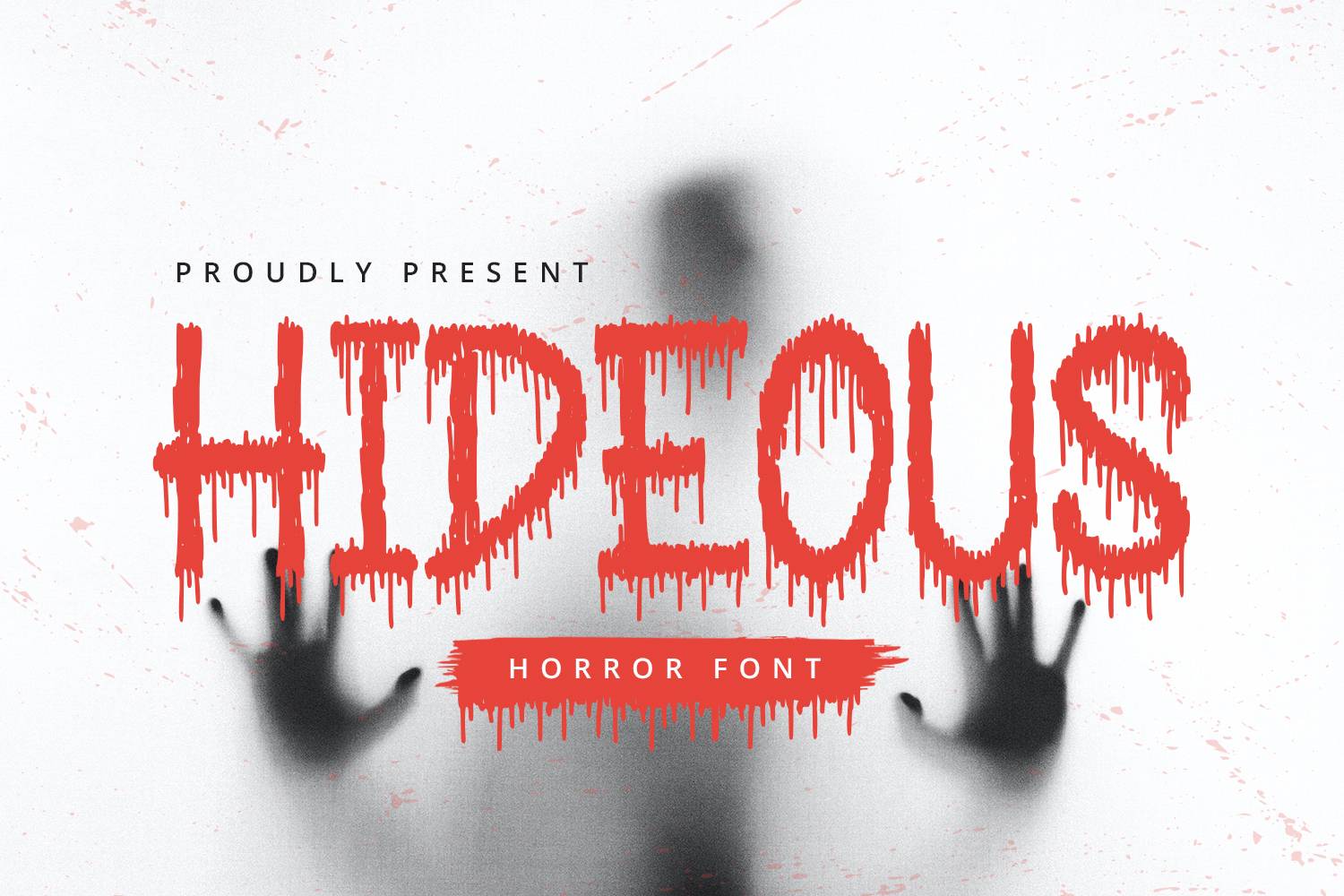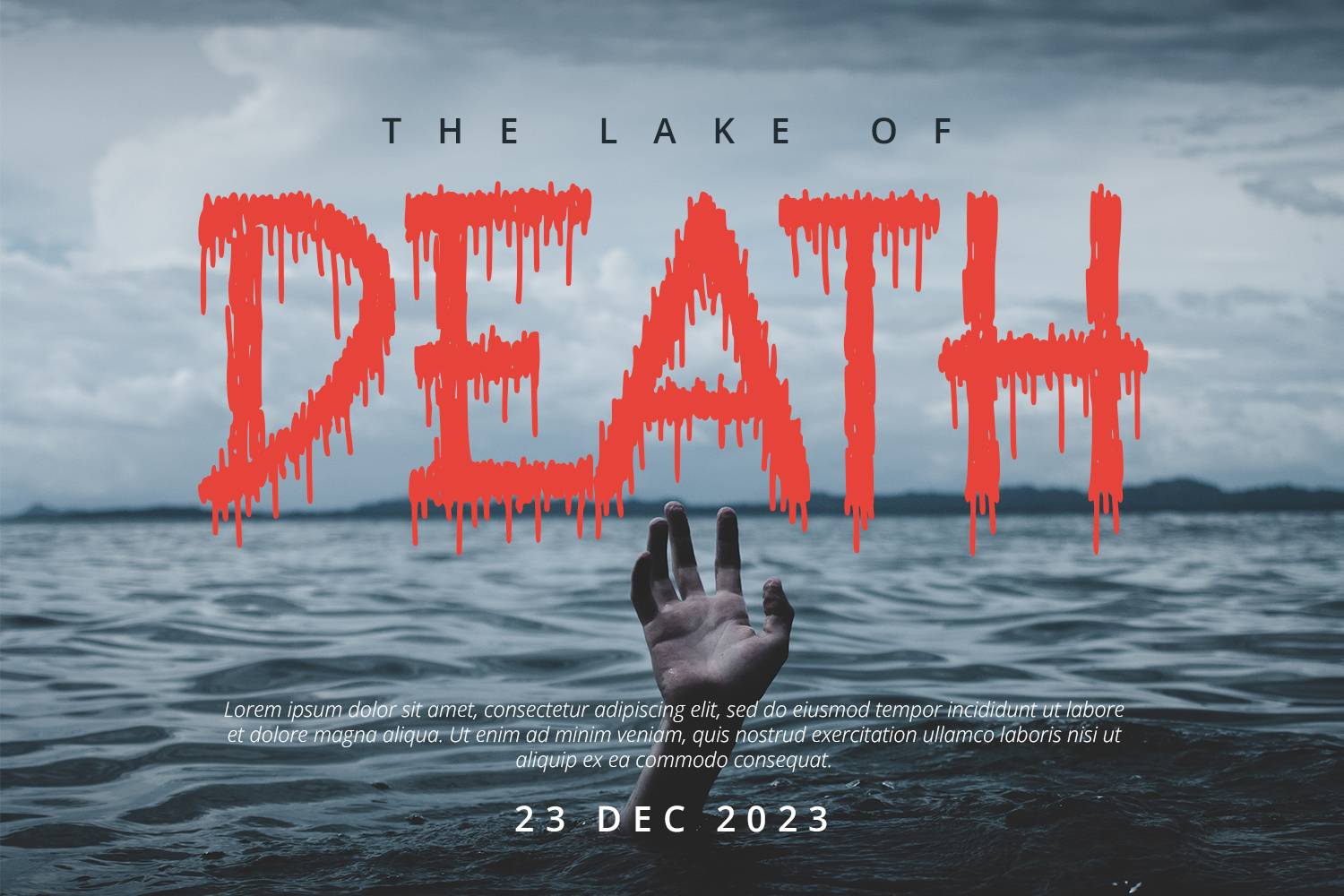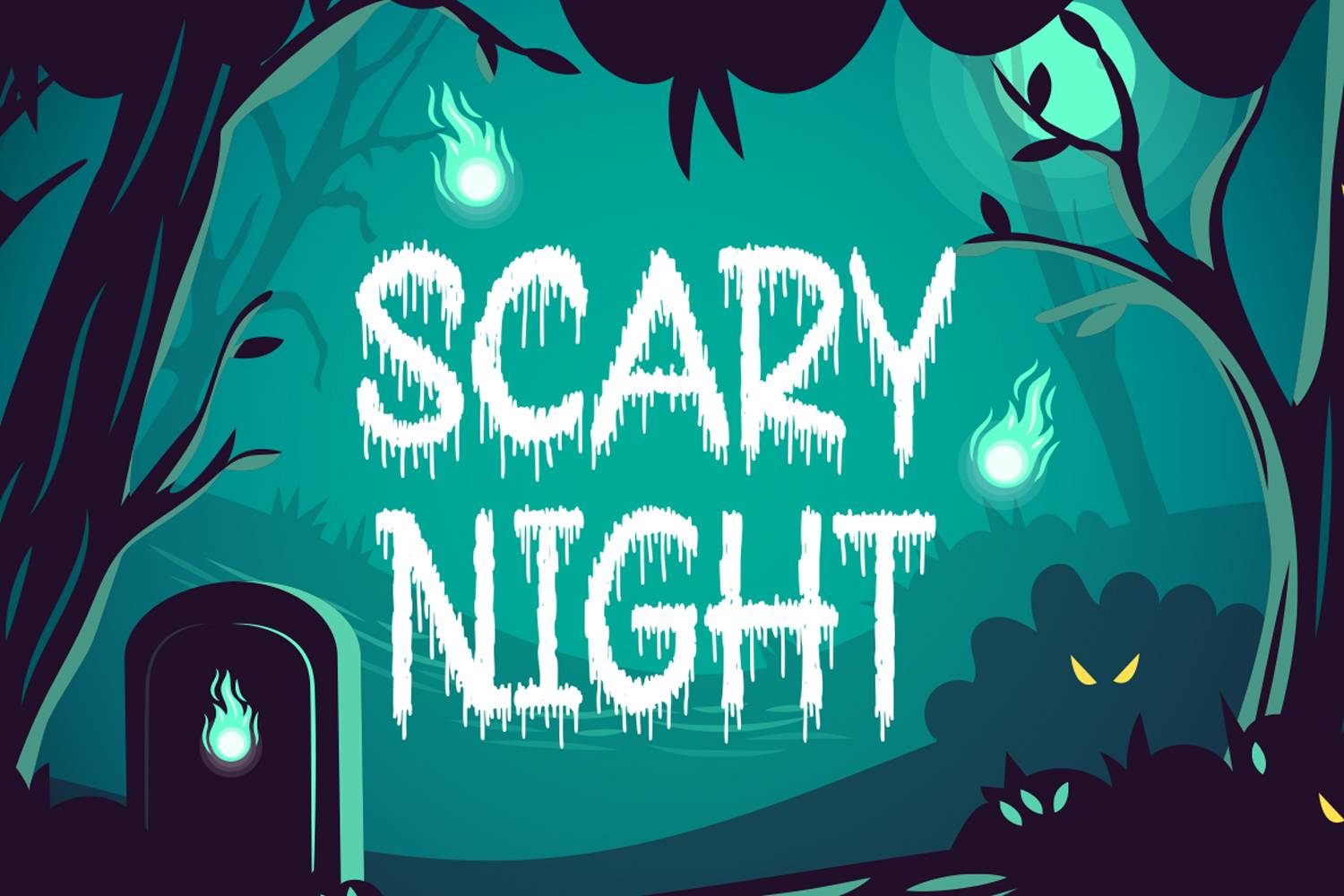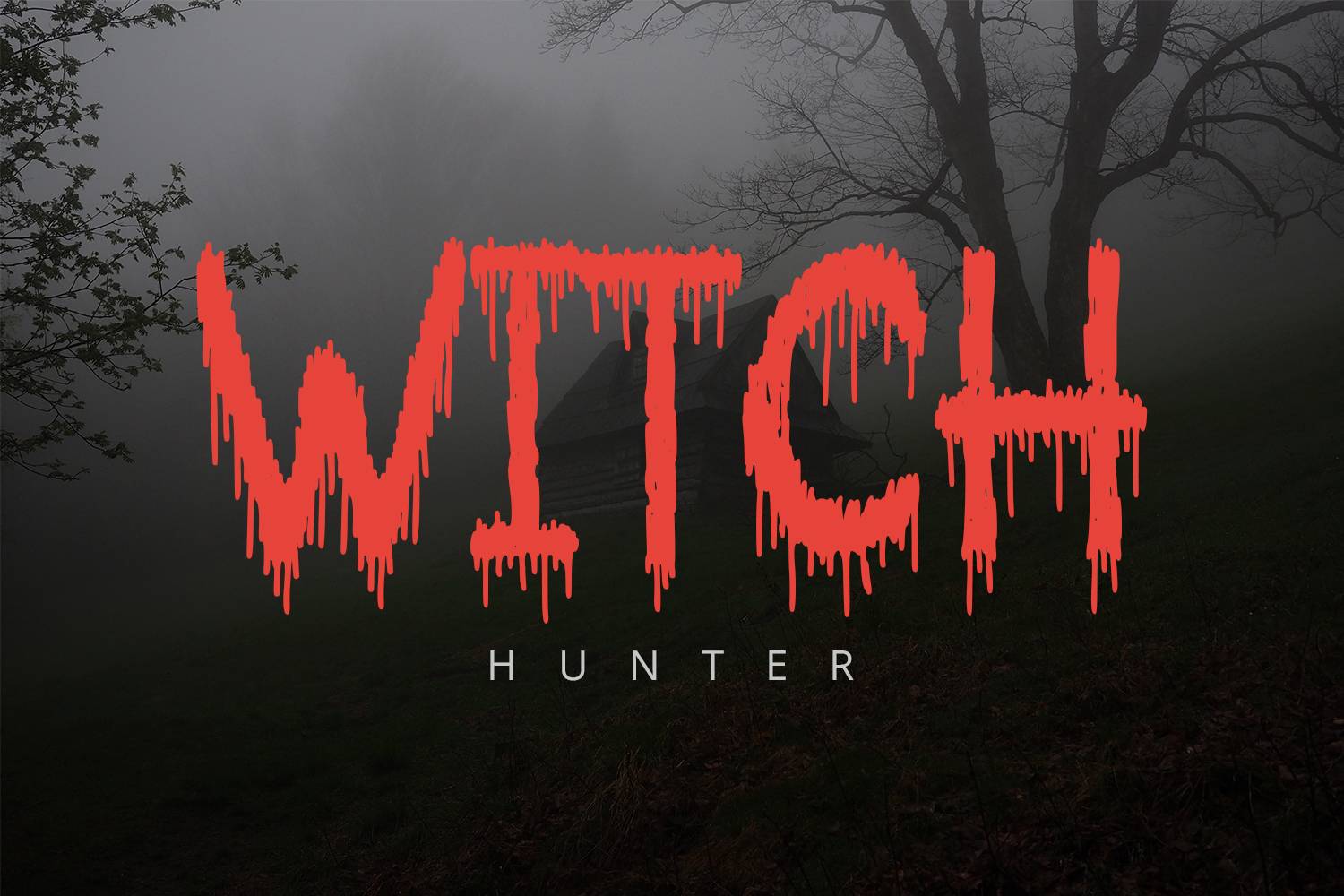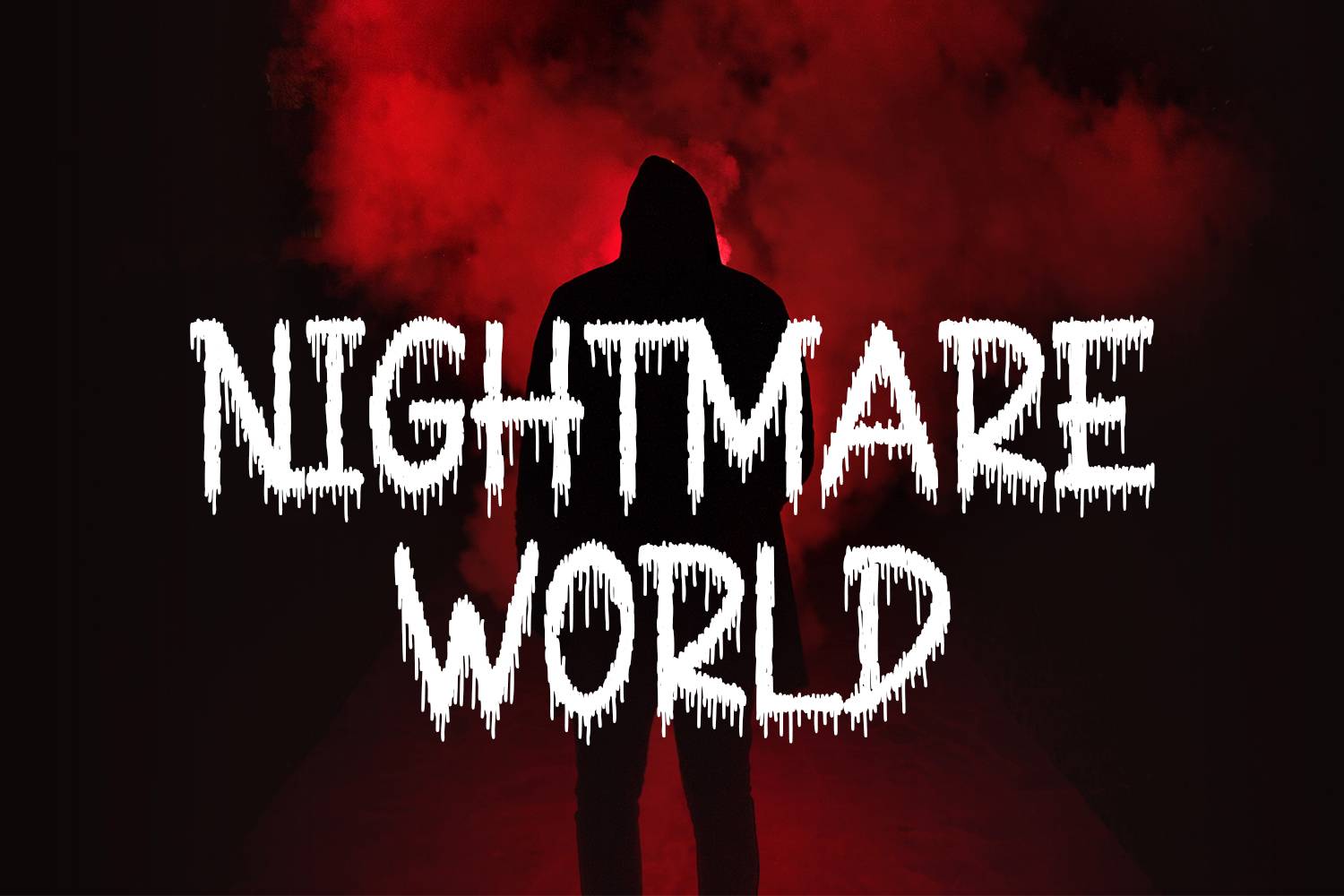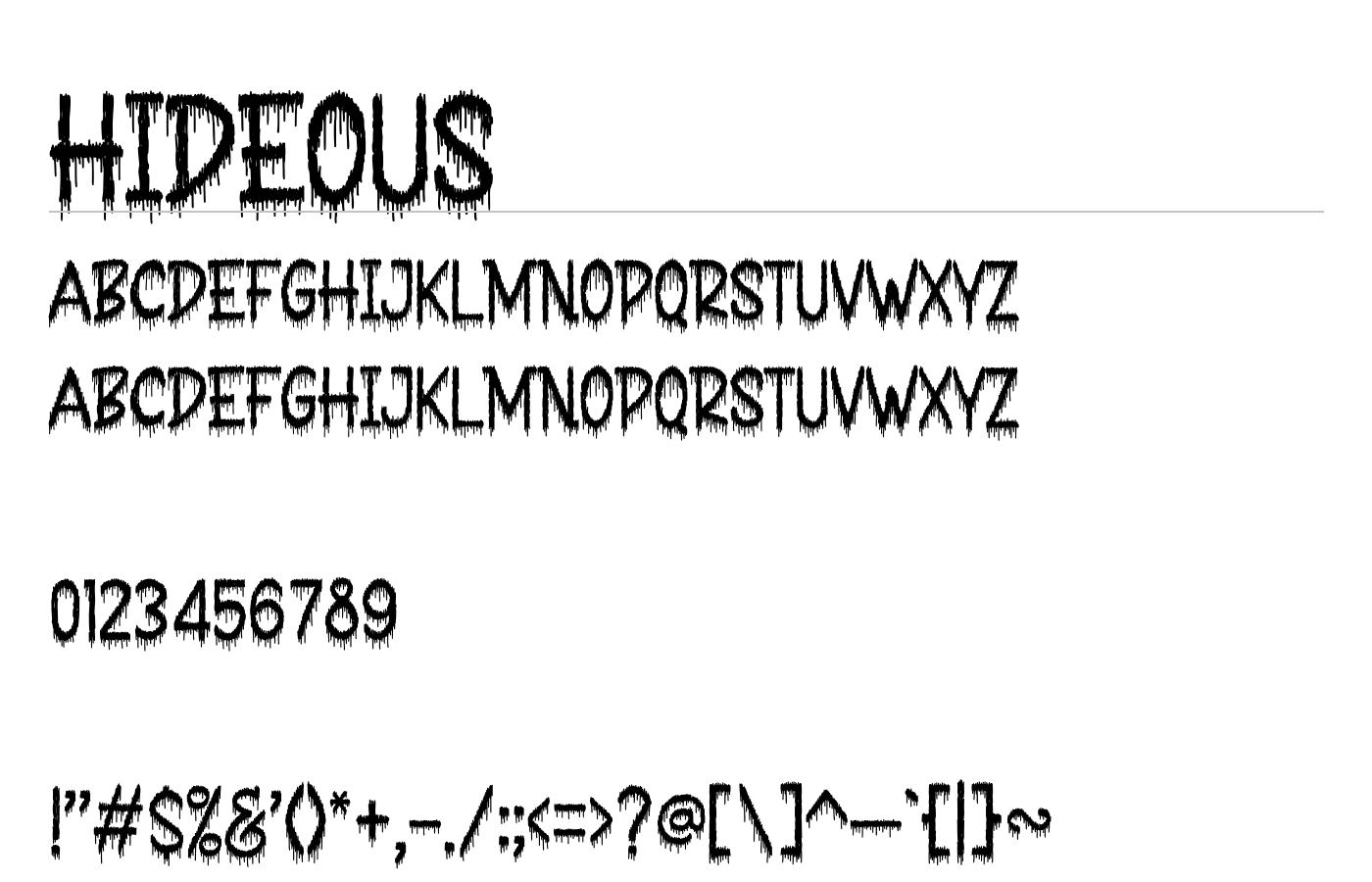
Hideous Font is a bold, distressed display typeface with rough, jagged edges that create a dripping, eerie effect, perfect for spooky or horror-themed designs. Its uppercase letters and tight spacing give it a strong, dramatic presence that works well in headlines, posters, and seasonal branding where a striking and unsettling vibe is desired. This font captures a playful yet creepy personality, making it ideal for Halloween events, horror movies, or any project needing a bold, eye-catching style.
Hideous Font
About Hideous Font